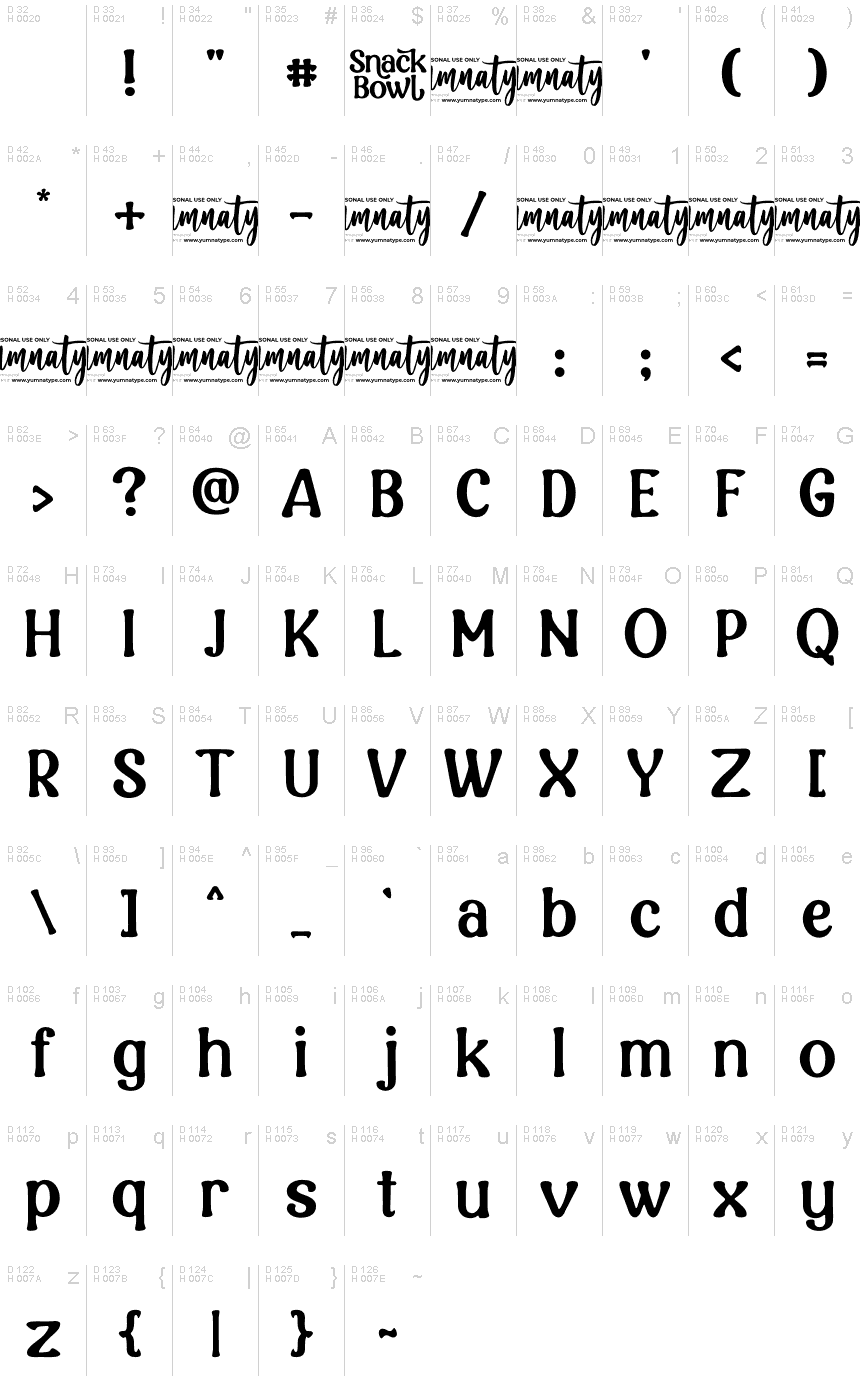
Snack Bowl Personal Use
Snack Bowl, designed by Yumna Family, is a delightful and playful font that adds a touch of whimsy to any project.
With its cute display style, this font is perfect for children's books, playful packaging designs, and cheerful greeting cards. Its rounded edges and friendly letterforms bring a sense of warmth and joy to invitations for baby showers or birthday parties. Snack Bowl's versatility also makes it suitable for creating eye-catching social media graphics or adding a touch of charm to websites catering to the food industry.
Let your creativity run wild with Snack Bowl!